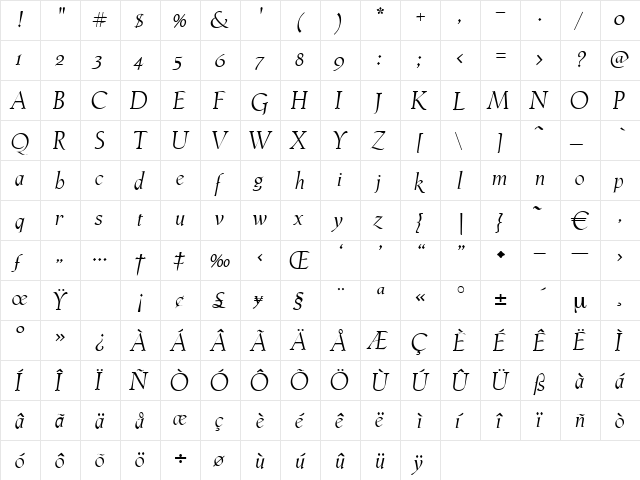
CosenzaItalic Regular
Design Context for CosenzaItalic Typeface
CosenzaItalic takes a measured approach to typography — its balanced proportions and neutral character make it a reliable workhorse for both digital and print work. The slanted form adds forward momentum and visual energy.
Pro Tip: Use CosenzaItalic for emphasis, pull quotes, and subheadings where its slanted energy can add rhythm to the layout.